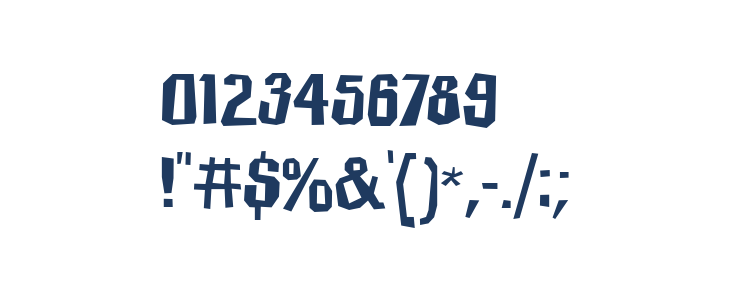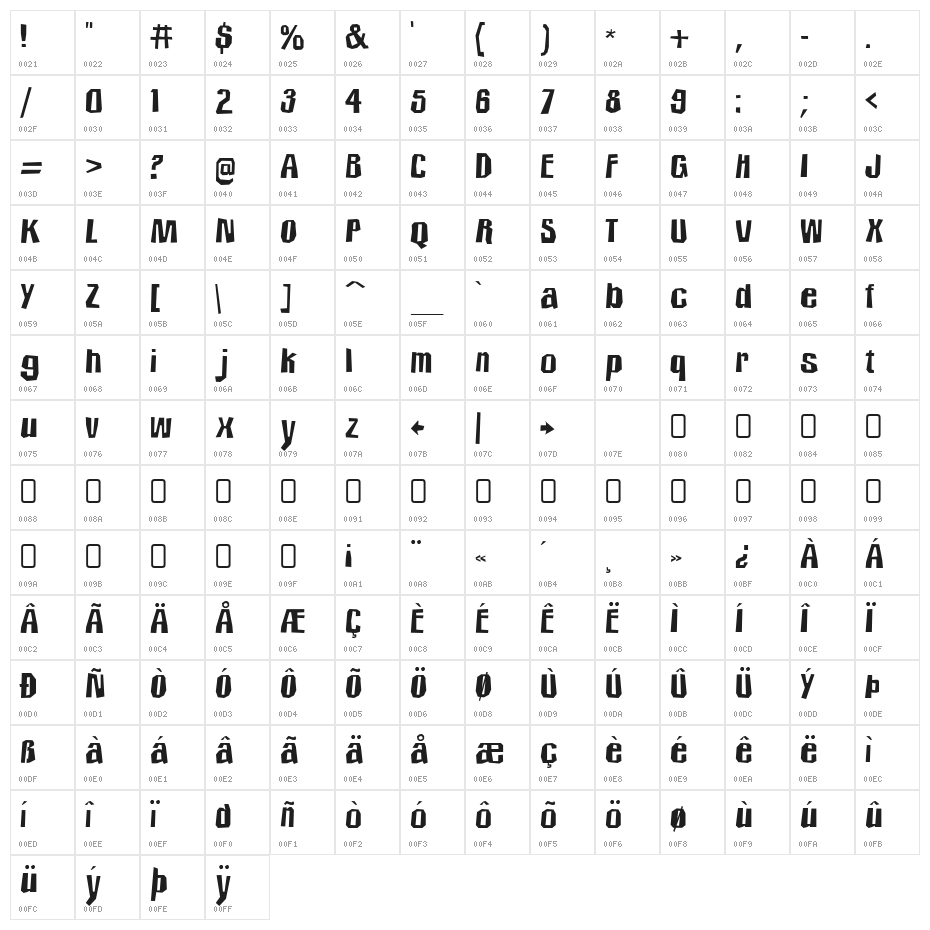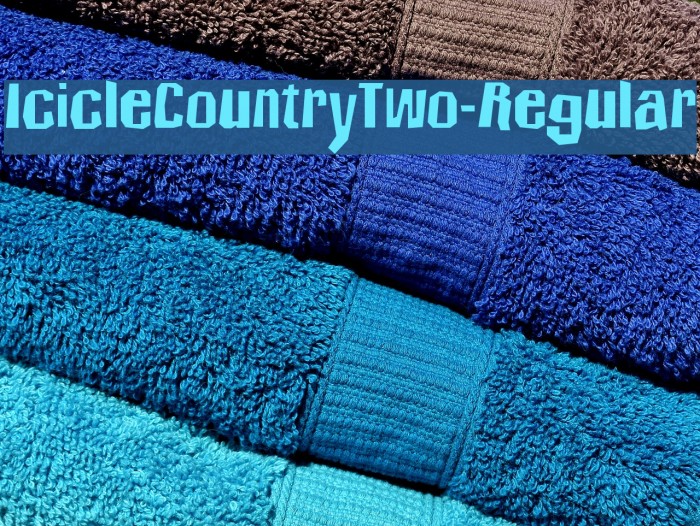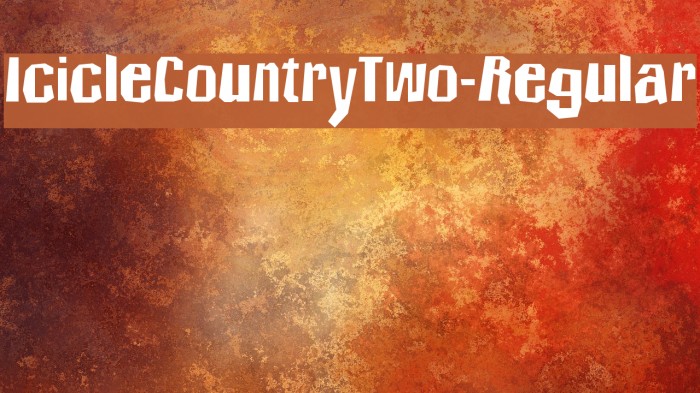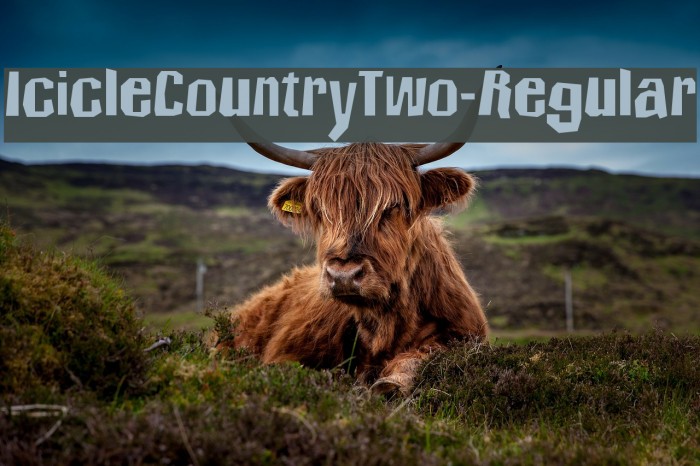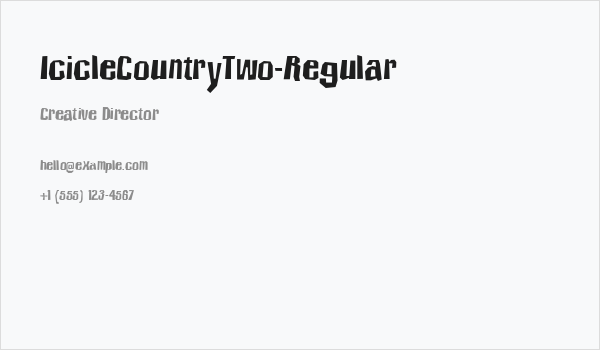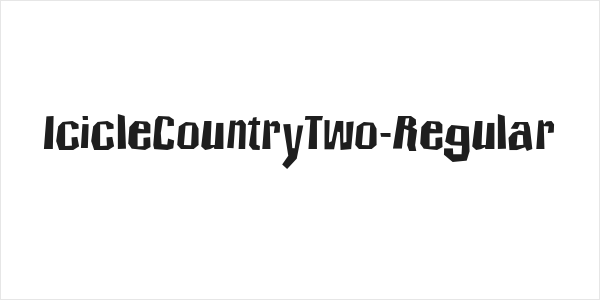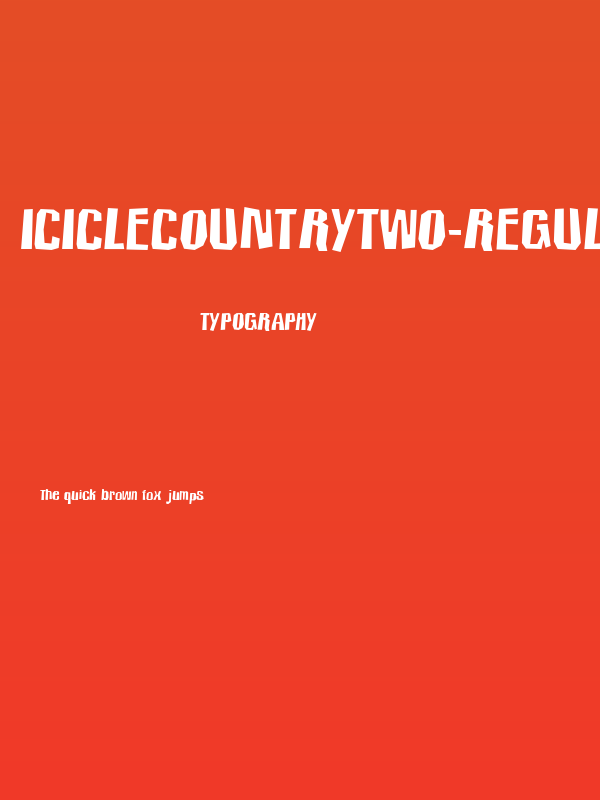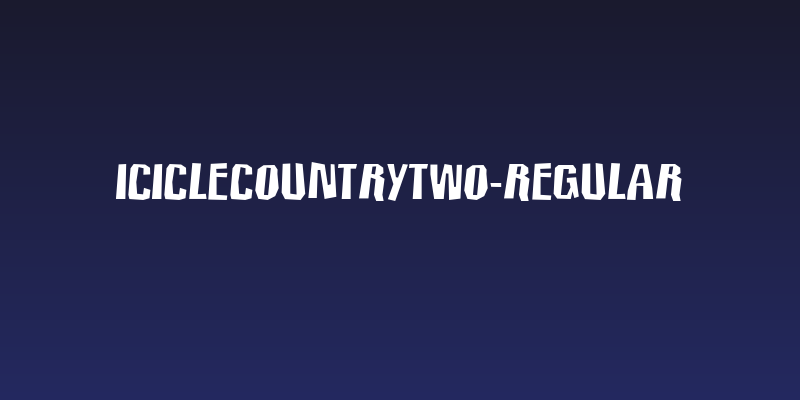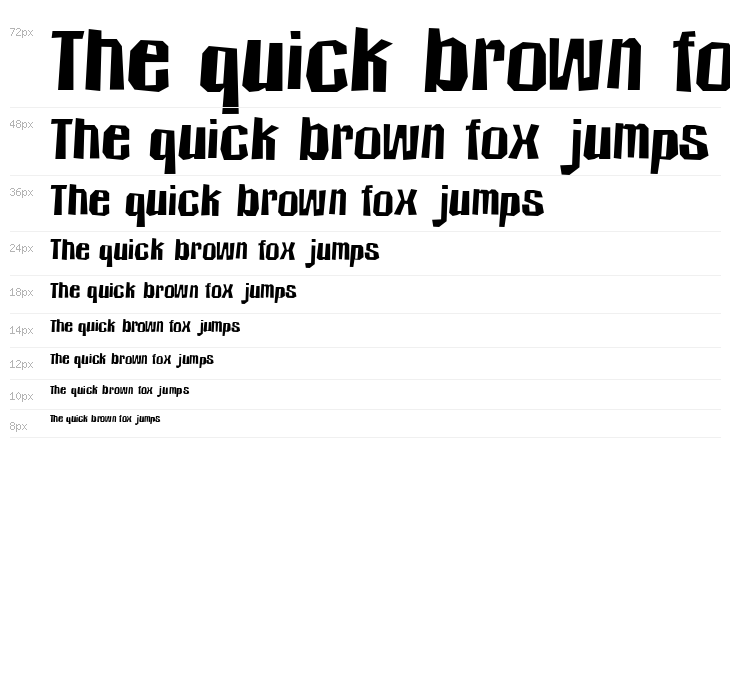
IcicleCountryTwo-Regular Font
IcicleCountryTwo-Regular Description
This font features a bold and angular design, characterized by sharp edges and a geometric structure. The uppercase letters are particularly striking, with a strong presence and a slightly condensed form. The lowercase letters maintain the same angular style, providing a cohesive look across the typeface. The numerals are equally bold, ensuring readability while maintaining the font's unique style. Special characters are designed to match the overall aesthetic, making this font suitable for eye-catching designs.
Proposed ProjectsIdeal for posters, logos, and branding projects that require a bold and distinctive look.